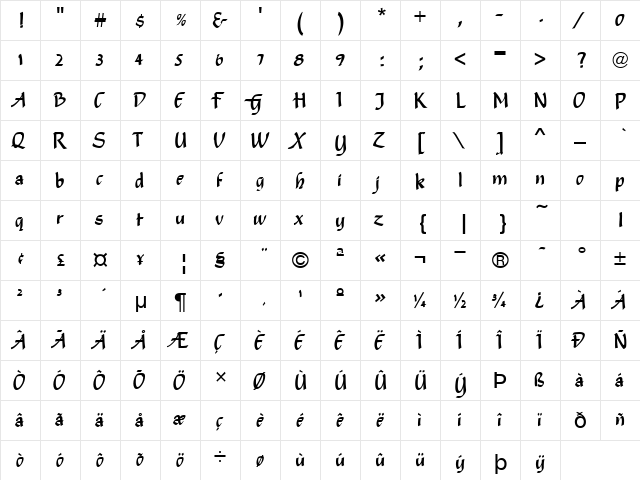
Champion Regular Font Preview
Champion Regular
Champion Regular Font Details
Design Context for Champion Typeface
Champion is a composed and adaptable typeface that performs quietly and consistently across a wide range of design contexts.